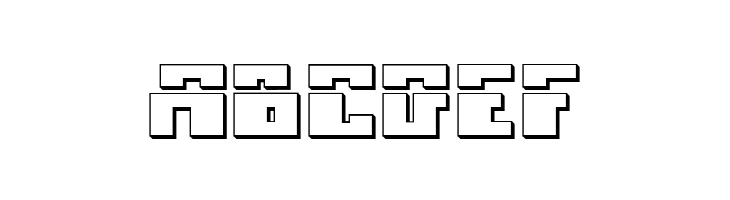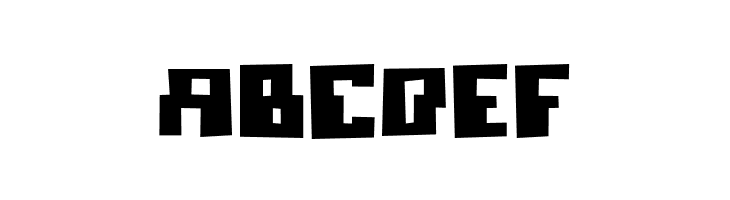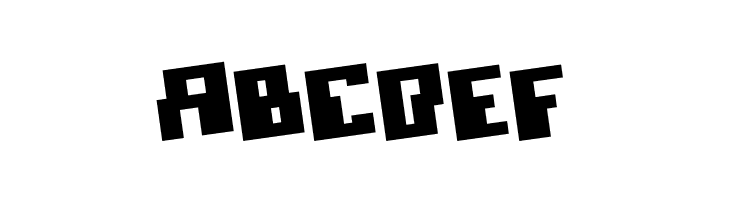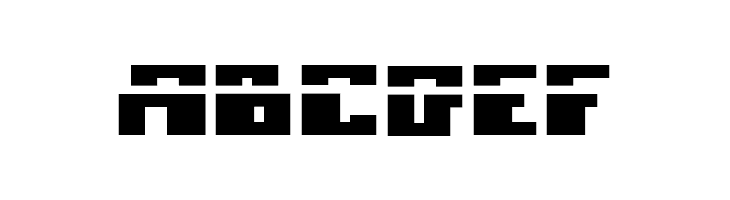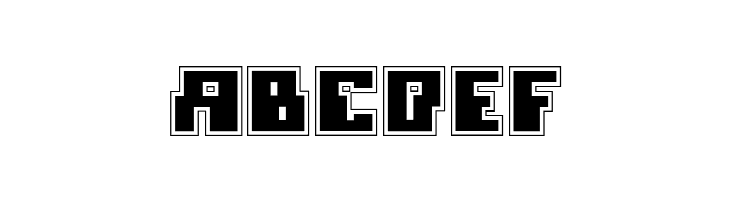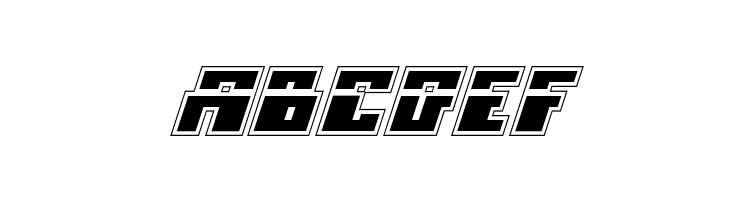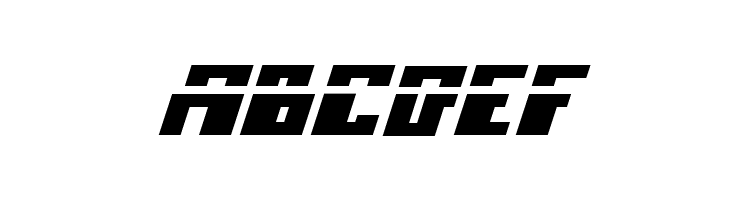
hollavetica Font
A futuristic, geometric font with a 3D effect and bold, angular lines.
A bold, geometric font with a futuristic, industrial style.
A bold, geometric font with a futuristic, blocky design.
A bold, geometric font with a futuristic and digital aesthetic.
A bold, geometric font with a futuristic, digital aesthetic.
A bold, futuristic italic font with sharp angles and a dynamic style.
A bold, futuristic font with angular, italicized characters.
A bold, geometric italic font with a futuristic and dynamic style.